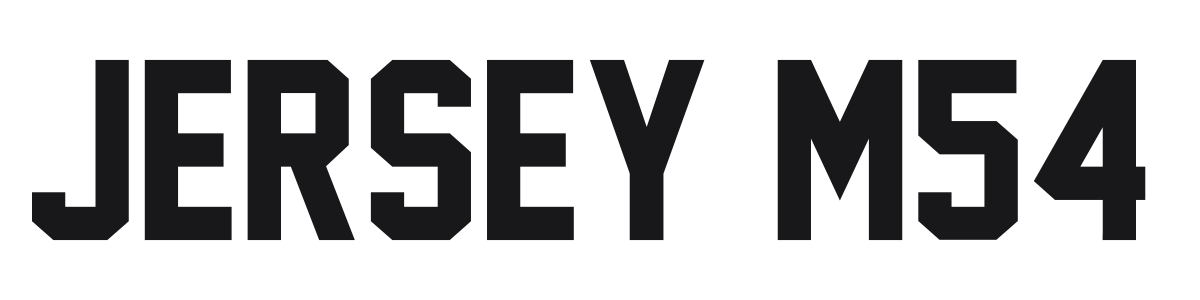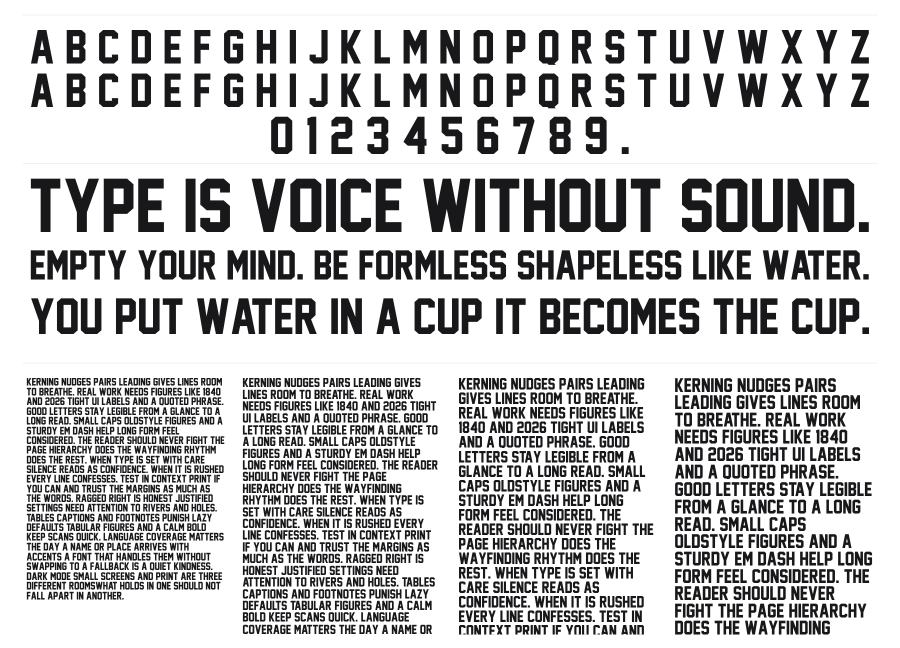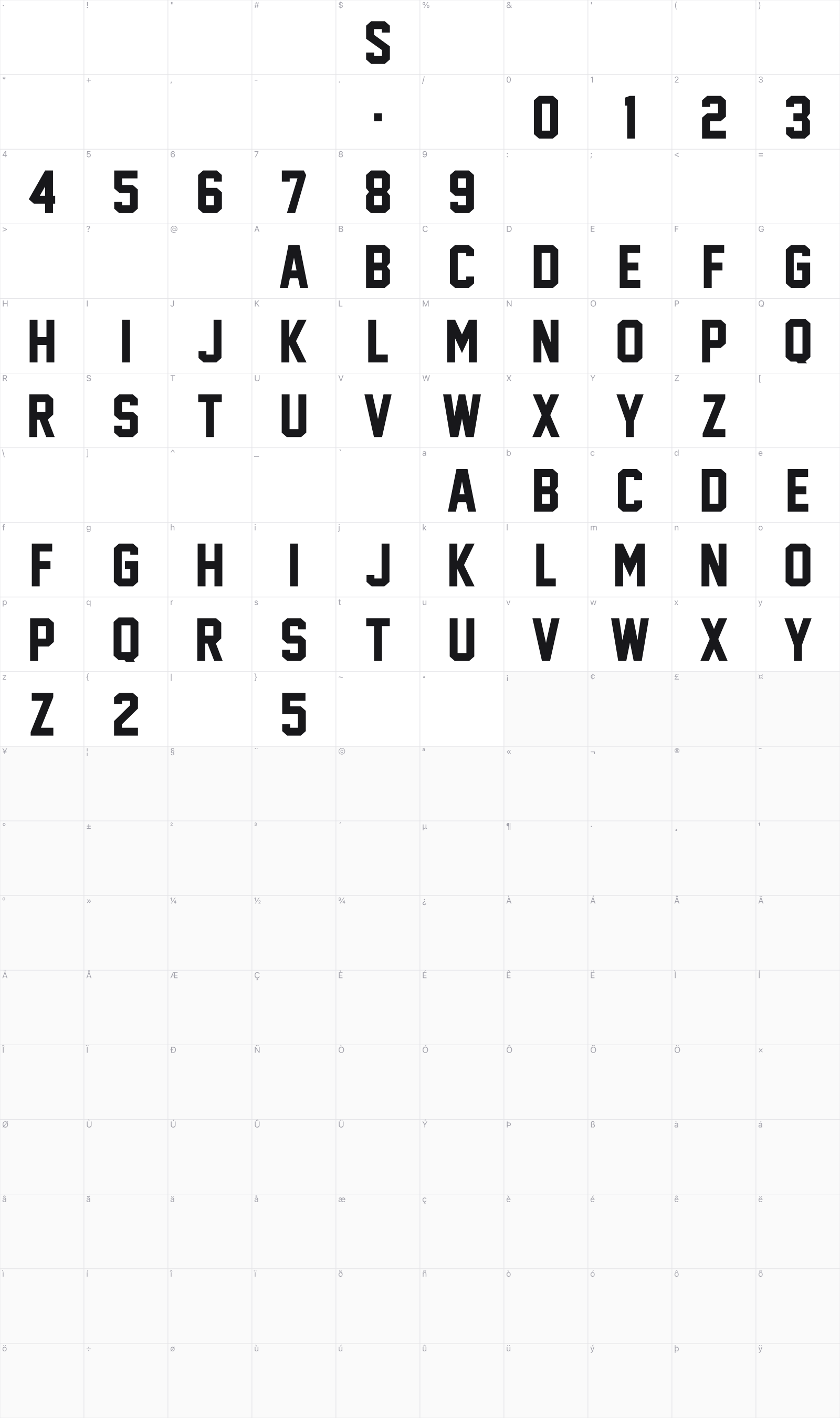
Jersey M54
Jersey M54 is a bold condensed sports font modeled after classic American jersey and apparel lettering. The characters carry that familiar collegiate authority with flat terminals and subtle angled notches at stroke joints. It was built for apparel and jersey design, and that's exactly where it thrives.